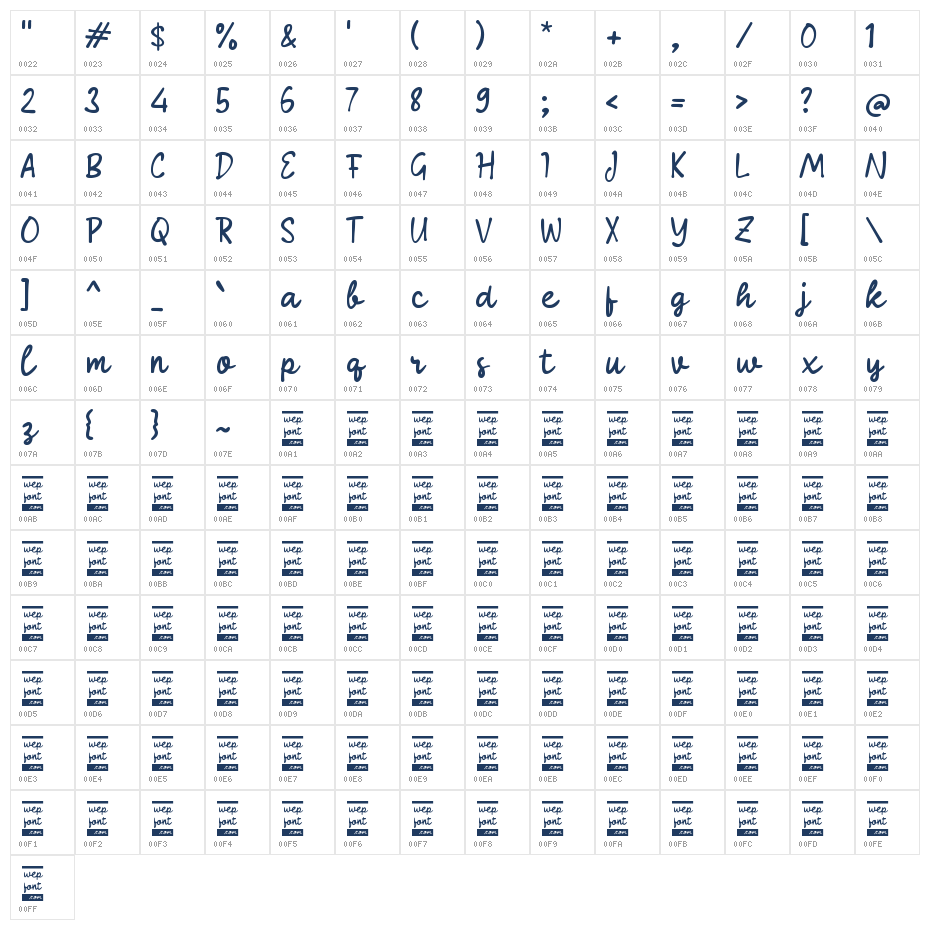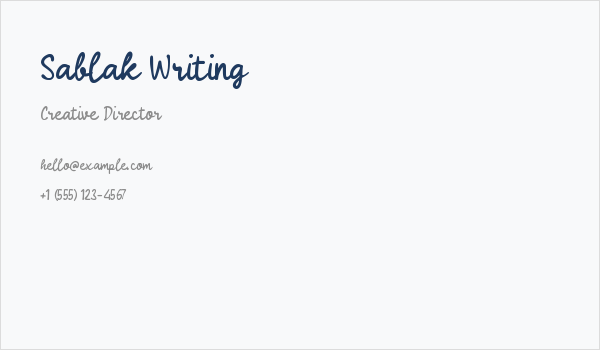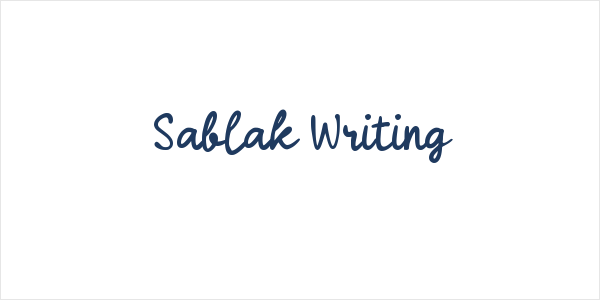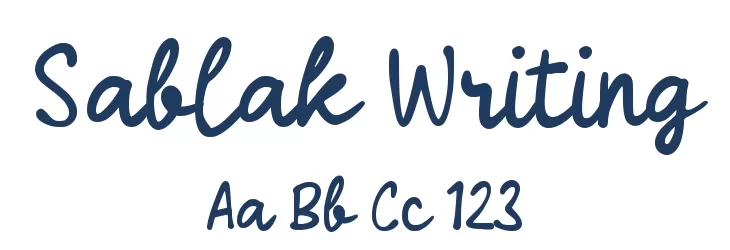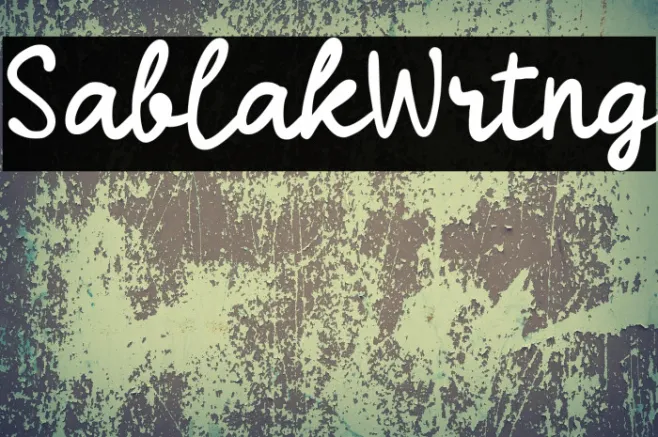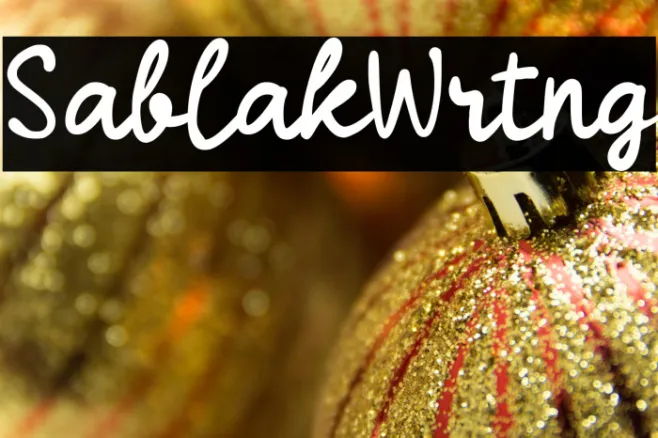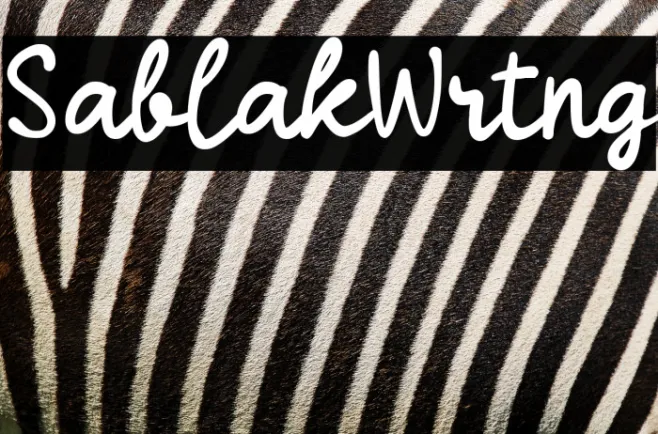
Sablak Writing Font
Sablak Writing Description
A casual, handwritten script font with a playful and friendly appearance, featuring rounded and slightly irregular characters.
| Overall Style | Casual, Friendly, Handwritten |